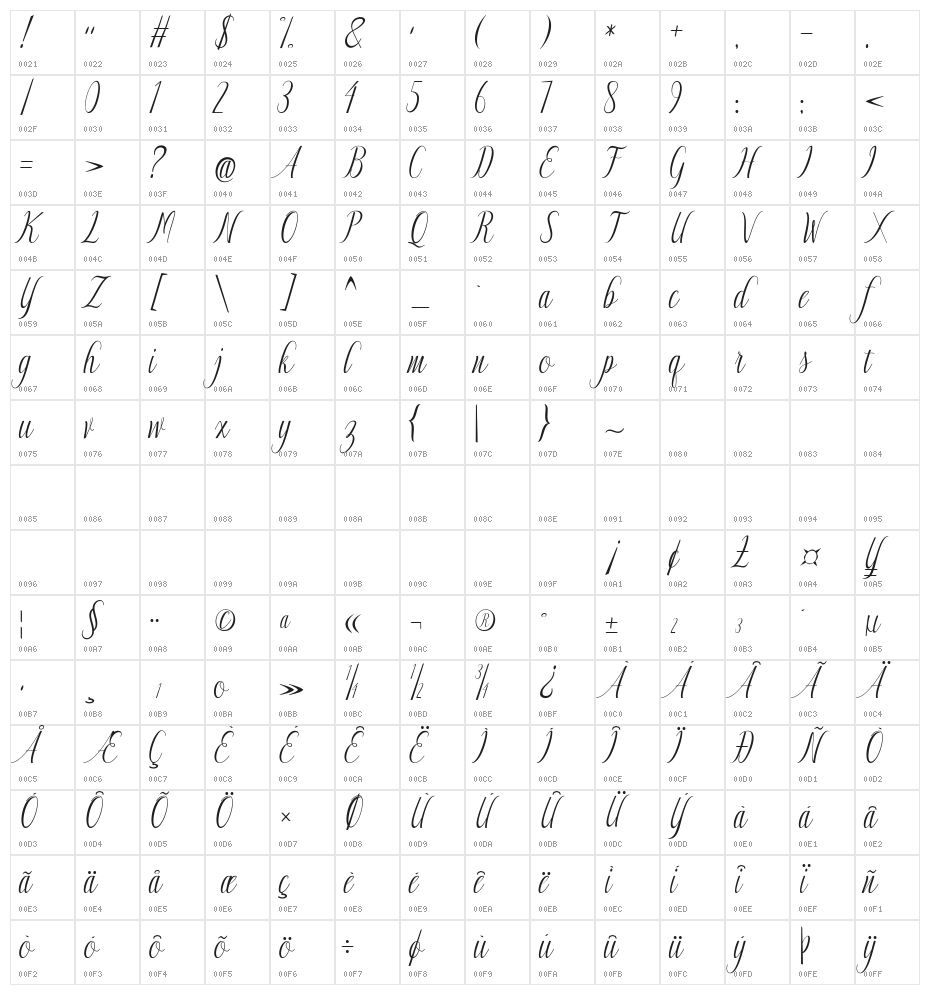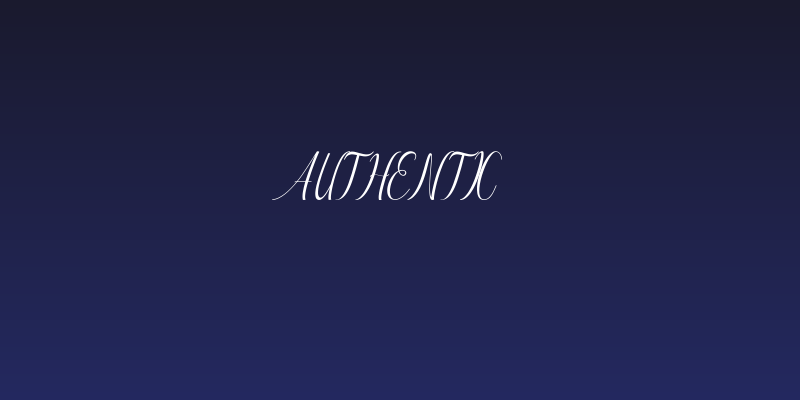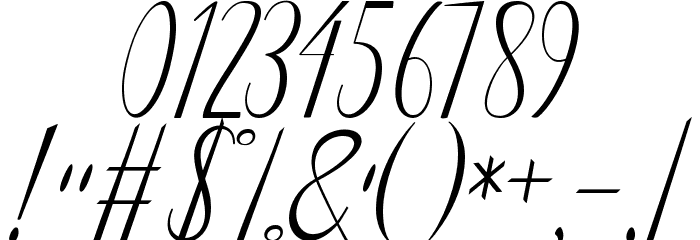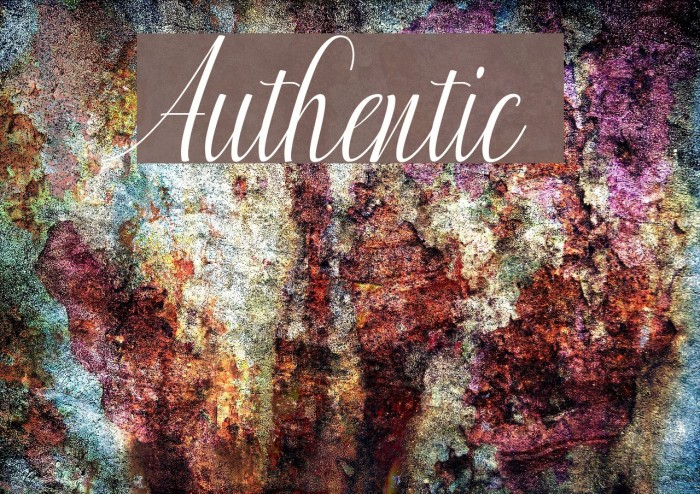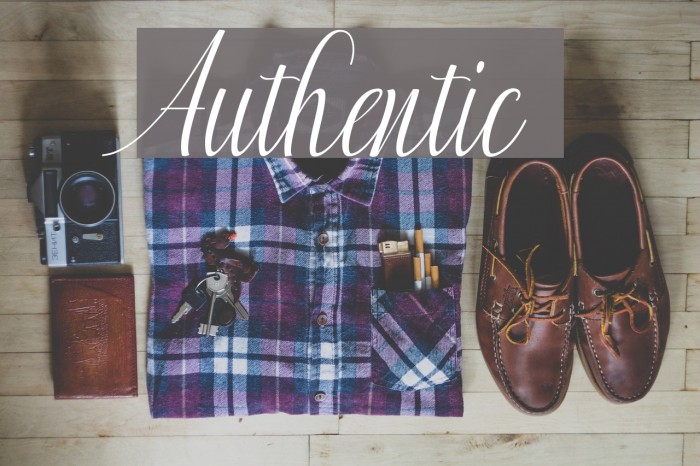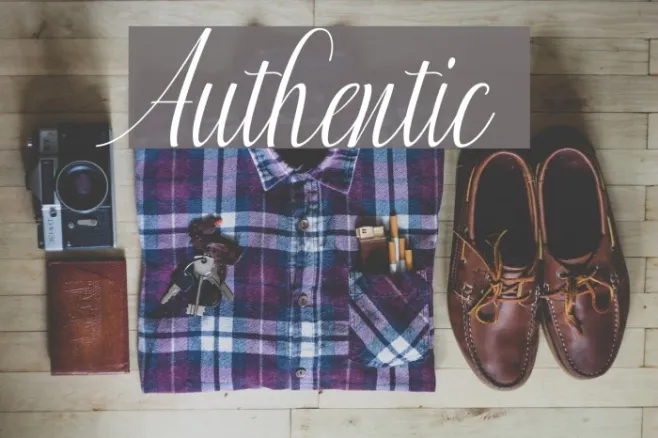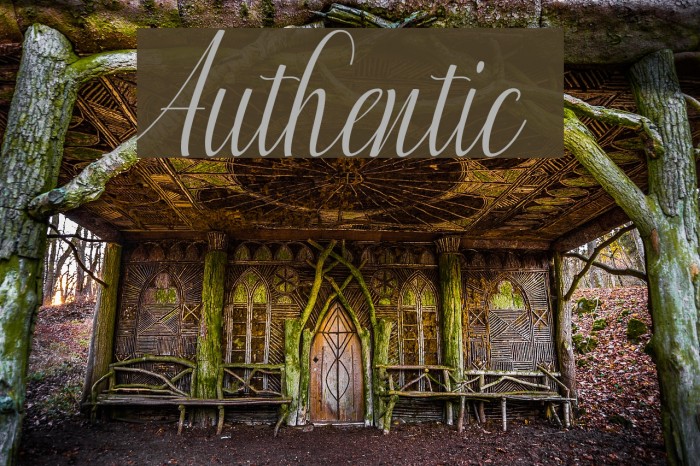
Authentic Font
Authentic Description
This font is a stylish and elegant script typeface that exudes a sense of sophistication and fluidity. The uppercase letters are characterized by their tall, slender forms with graceful curves and loops, giving them a refined and airy appearance. The lowercase letters maintain a consistent flow, with smooth connections between each character, enhancing the font's cursive nature. The numerals are designed with a similar elegance, featuring a balanced mix of curves and straight lines. Special characters are thoughtfully crafted to complement the overall aesthetic, making this font versatile for various design needs. Its artistic flair makes it suitable for projects that require a touch of elegance and creativity.